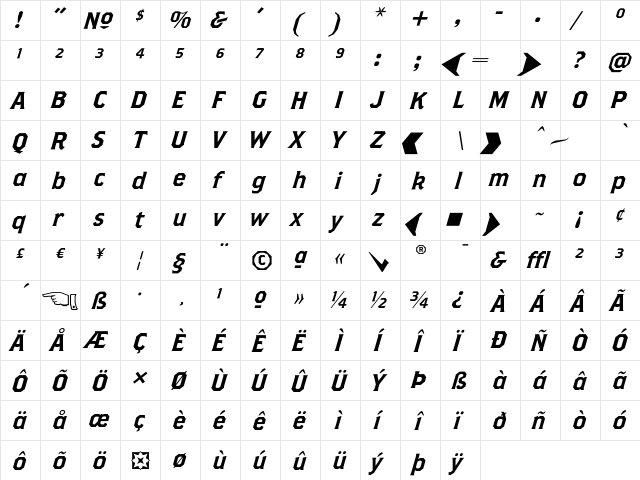
Brothers SuperSlantAlternates Font Preview
Brothers SuperSlantAlternates
Brothers SuperSlantAlternates Font Details
| Style | SuperSlantAlternates |
| Copyright | Copyright (C) 1999, Emigre, Inc. Designed by John Downer |
Design Context for Brothers Typeface
Brothers takes a measured approach to typography — its balanced proportions and neutral character make it a reliable workhorse for both digital and print work.